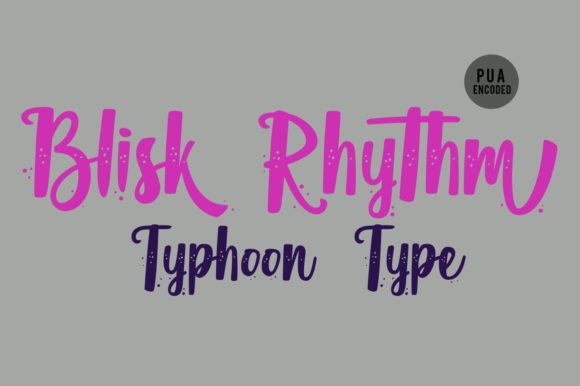
Blisk Rhythm Font
About Blisk Rhythm Font
Blisk Rhythm is a bold and powerful handwritten font with a cool feel. It will add a stylish touch to any design idea!